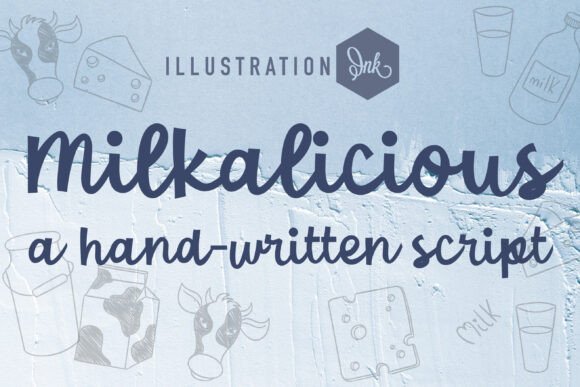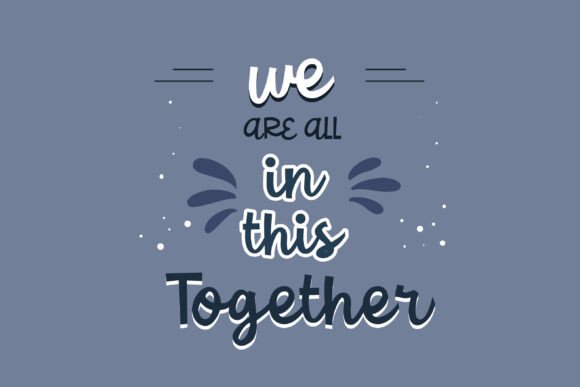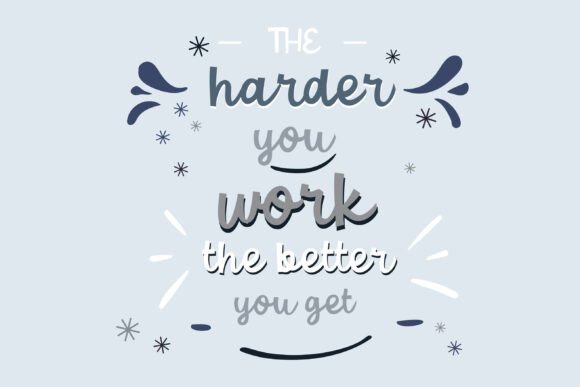
Milkalicious Font
About the Milkalicious Font
The Milkalicious Font is here to transform your projects with its distinctive character and style. This hand-crafted font is a youthful and fun cursive.
Milkalicious is ideally suited for headlines, short text blocks on packaging, and branding elements where a playful, youthful feel is desired. Its expressive nature makes it perfect for projects targeting a younger demographic or those needing a touch of whimsy. Avoid using it for large amounts of body copy or UI elements; its cursive style hinders readability in extended text.
Pairing Milkalicious effectively requires considering its handcrafted charm. A clean sans-serif like Open Sans or Lato would provide a strong contrast and enhance readability in supporting text. For a more sophisticated look, consider pairing it with a classic serif like Garamond or Playfair Display.
The font’s overall personality is undeniably cheerful and energetic. Its boldness can be leveraged for impactful statements, while the cursive style adds a friendly, approachable touch.
Milkalicious Font Usage Examples
Milkalicious Font Example